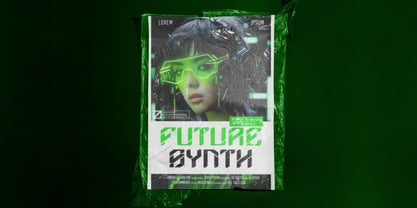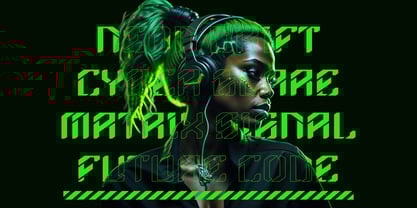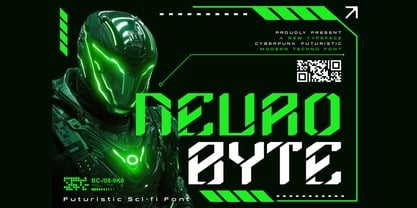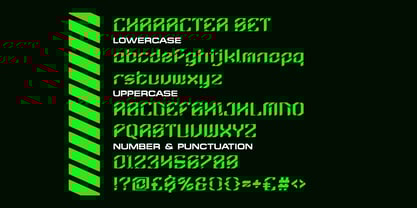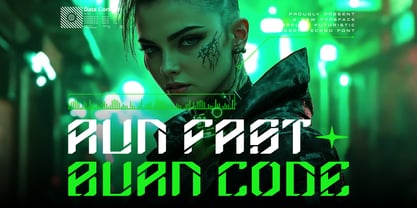
Neurobyte
por Shanaf
La familia tipográfica Neurobyte fue diseñada por Yesie Erma Yunita y publicada por Shanaf. Neurobyte contiene 2 estilos y opciones de paquete familiar.
Neurobyte Futuristic Sci-fi Font is a striking typeface built for the future of design. With sharp geometric letterforms, angled cuts, and glowing cyberpunk aesthetics, it perfectly captures the essence of digital worlds. The font reflects a balance between modern sci-fi precision and edgy techno energy, making it stand out in bold titles and eye-catching layouts. Its unique structure gives every word a coded, high-tech appearance, ideal for projects that need to feel innovative and powerful. Inspired by neon-lit streets, virtual reality, and cybernetic systems, Neurobyte brings a modern touch to any creative work.
This font is perfect for futuristic posters, cyberpunk branding, sci-fi movie titles, game covers, and tech-inspired logos. It adapts well to digital platforms, packaging, and editorial layouts where strong visual impact is required. Designers can use it for invitations, stickers, business cards, and book covers with a futuristic edge. Neurobyte is not just a font; it is a visual code that transforms words into electrifying designs. With its modern techno style, it offers versatility across print and screen projects, ensuring a bold identity for every creative vision.
Diseñadores: Yesie Erma Yunita
Editorial: Shanaf
Fundición: Shanaf
Propietario del diseño: Shanaf